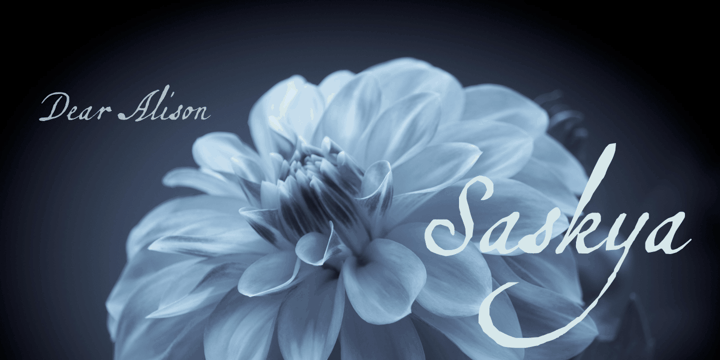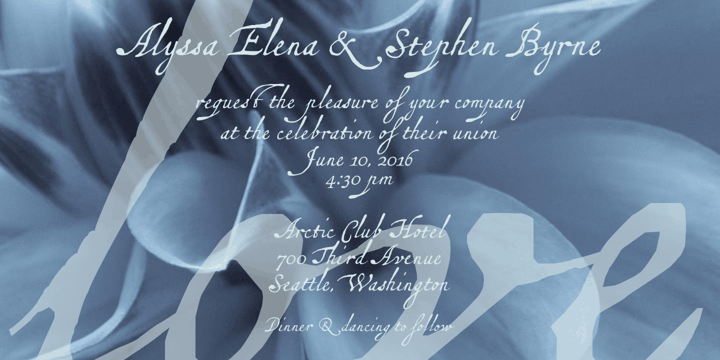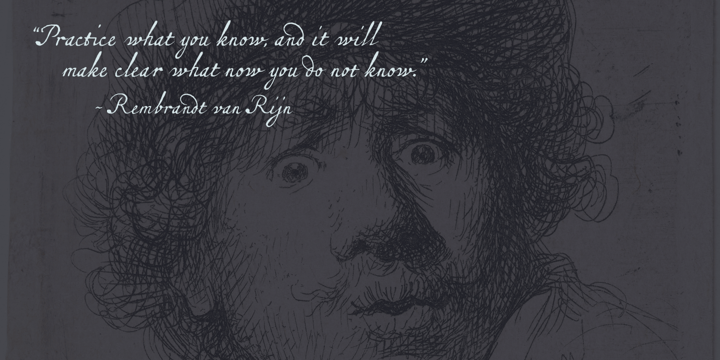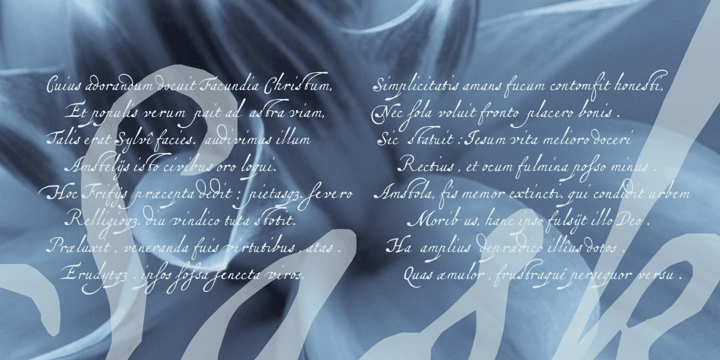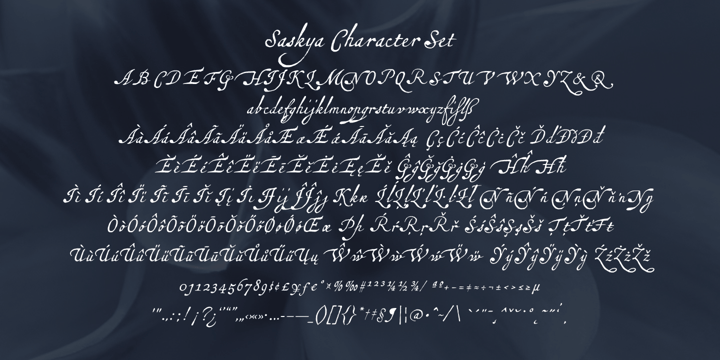
Saskya
While I was in Boston in 2014, I visited the Museum of Fine Arts and an exhibit of etchings by Rembrandt, one of my favorite artists. As to be expected, many were simply gorgeous, but one especially caught my eye. It was an etching of a priest (Jan Cornelis Sylvius, Preacher) with an extensive amount of writing in Latin. While I'm not certain that it was Rembrandt's own hand, the script was beautiful and I was fascinated by it because it had to be written on the etching plate in reverse. I snapped a few photos using my phone and later found other editions on line. I was so taken by the script that it begged me to create a modern typeface from it. The result is Saskya, named after Rembrandt's wife Saskia.
There were many ligatures and glyph variants in the print, of which I captured many of them and made them accessible via OpenType features. The complete alphabet was not present in the sample, however, I discovered some other source material to sensitively fill in those gaps, with a remaining last few that I created myself.
A truly romantic hand, Saskya will work well for invitations of many sorts, and when you're looking for that 'old thyme' scripty feeling in your graphics.